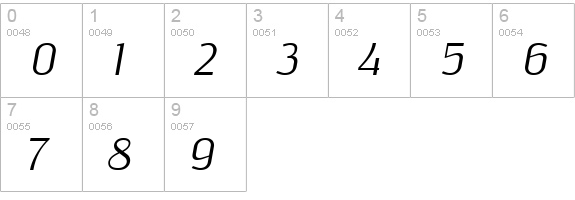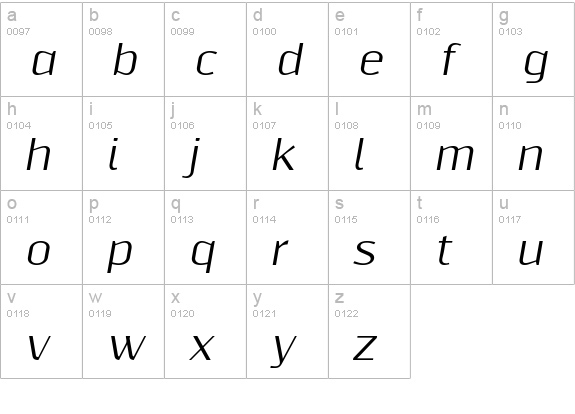
ResagnictoItalic Font Details
ResagnictoItalic is a captivating and elegant font that exudes sophistication and charm. Its sleek and slanted design adds a touch of modernity to any project, making it a perfect choice for both digital and print applications. The smooth curves and delicate strokes of ResagnictoItalic create a sense of fluidity and grace, capturing the attention of viewers and leaving a lasting impression. This versatile font offers a wide range of possibilities, whether it is used for branding, logo design, editorial layouts, or any other creative endeavor. Its unique italic style adds a sense of dynamism and energy, allowing for bold and impactful typography that stands out from the crowd. ResagnictoItalic is a true powerhouse font that effortlessly combines elegance and versatility. What sets ResagnictoItalic apart is not only its exceptional design, but also the fact that it is available for free download at FontsMarket.com. This means that designers and creatives can easily access this remarkable font without any cost, making it an invaluable resource for both personal and commercial projects. With its generosity and accessibility, ResagnictoItalic opens up a world of creative possibilities, allowing designers to bring their visions to life without any limitations. So, whether you are a professional graphic designer or an aspiring creative, ResagnictoItalic is a font that should not be missed. Its free availability at FontsMarket.com makes it a truly valuable asset, ready to help you elevate your designs to new heights. Embrace the beauty and versatility of ResagnictoItalic and let your creativity flourish.